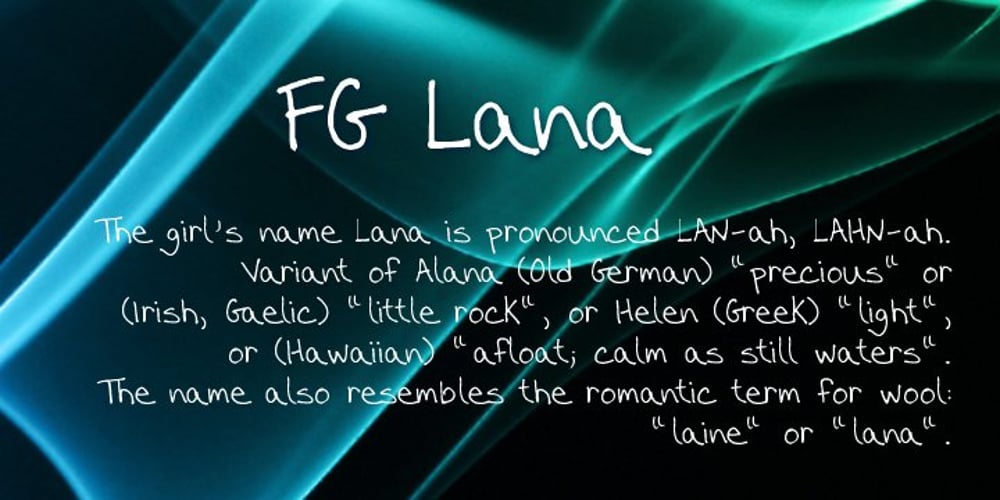
FG Lana Font Family was designed by Ellinor Maria Rapp and published by YOFF. FG Lana contains 1 styles and family package options. FG Lana is a teenager with big visions and a bit naive kind of writing.